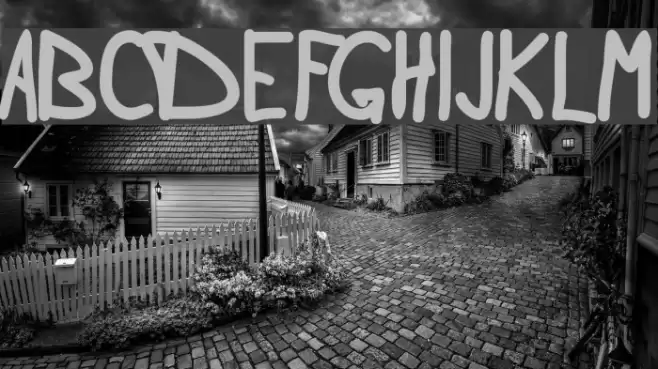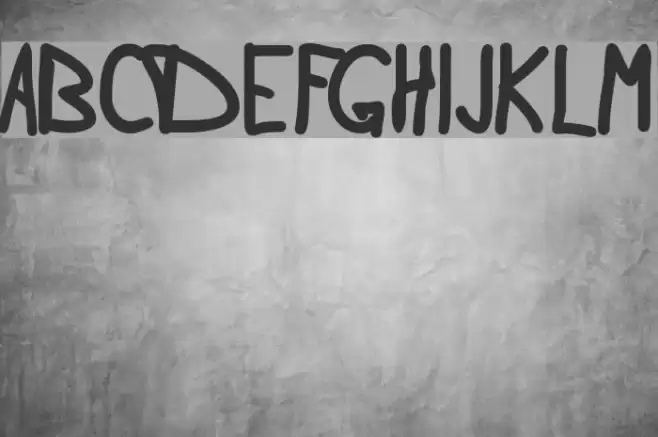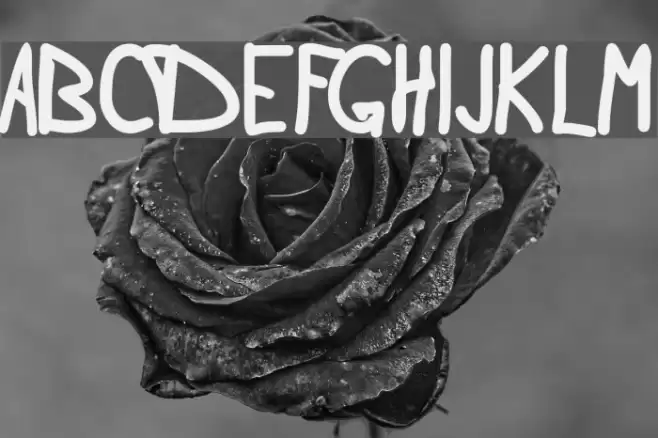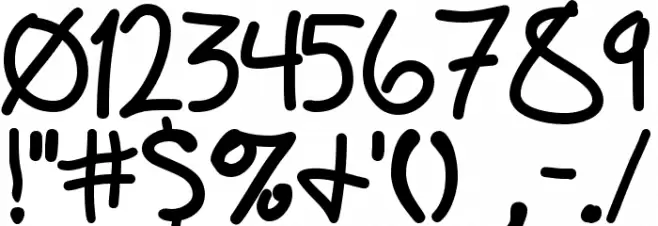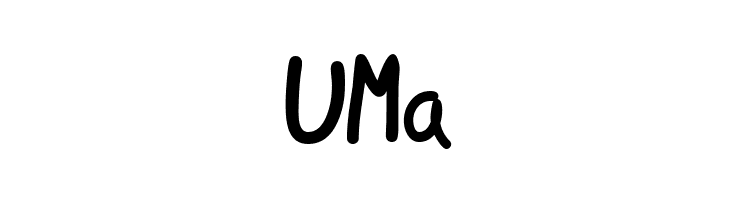
Douglas Hand Normal Font
Douglas Hand Normal Description
This font features a playful and informal handwritten style, characterized by its bold and rounded letterforms. The uppercase and lowercase letters maintain a consistent flow, with slightly exaggerated curves and a casual, friendly appearance. The numerals and special characters are equally expressive, adding to the font's overall charm. The strokes are uniform in thickness, contributing to a cohesive look across all characters. This font exudes a sense of approachability and creativity, making it ideal for projects that require a personal touch.
A playful, bold handwritten font with rounded, expressive characters from Handwritten fonts.
- Proposed Projects: Ideal for greeting cards, children's books, casual branding, and social media graphics.
- Overall Style: Casual, Playful
- Use Case: Logos, Headlines, Informal Text